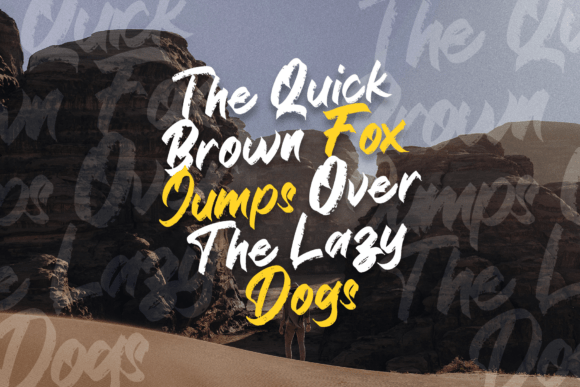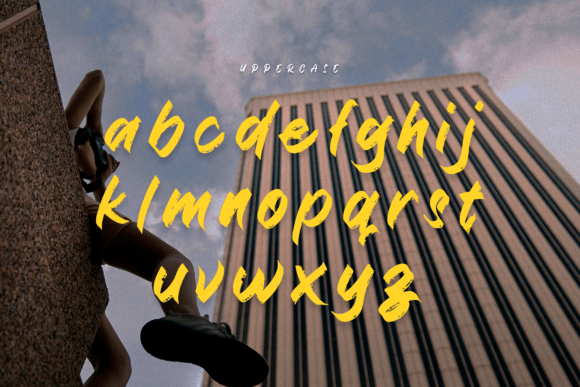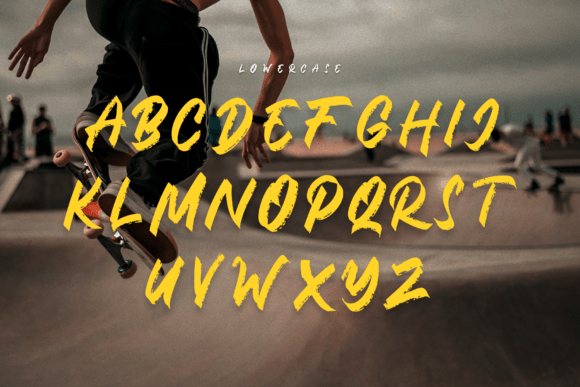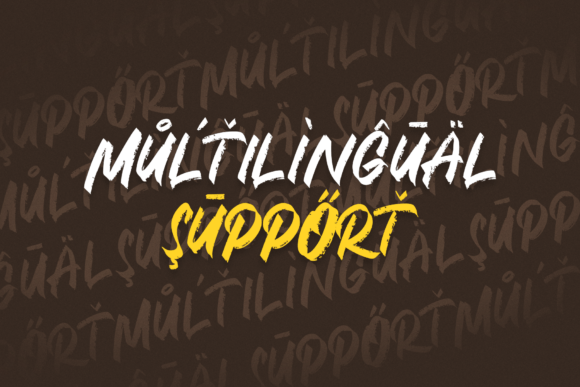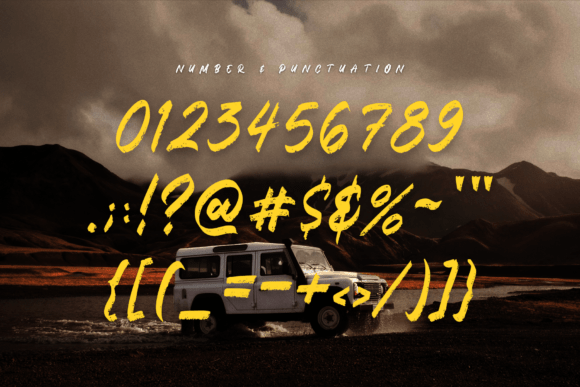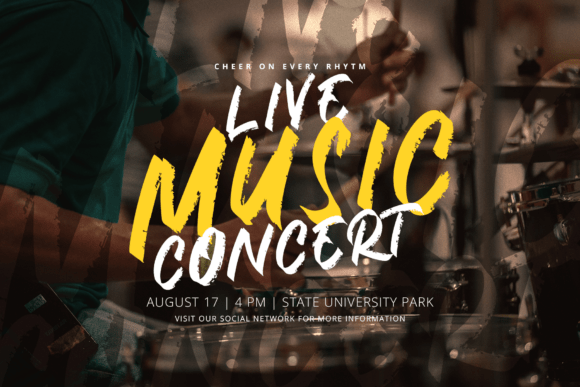
Unlock the Power of Brasskent Font: Elevate Your Designs with a Bold, Textured Brush Font
Welcome to the world of the provocatively impactful and expressive Brasskent font. This unique textured brush font carries with it an unforgiving boldness expertly designed to inject a passionate potency into your crafts, streetwear, or merchandise designs. Handwritten and meticulously crafted, Brasskent promises an edgy, urban, and gritty aesthetic that perfectly balances raw energy and artistry.
The Artistry of Brasskent
Brasskent’s sharp, dry-brush strokes are beautifully detailed and finely tuned to create an awe-inspiring display on your physical products. The font’s design is a masterclass in balancing contrasting elements, blending rough, textured brushstrokes with precise, calculated craftsmanship. This harmonious union results in a font that’s as visually striking as it’s versatile.
Unleash Your Creativity with PUA Encoding
An added dash of dynamism comes courtesy of Brasskent’s fully PUA (Private Use Area) encoded characters. This feature provides effortless access to the font’s outstanding alternate glyphs, unique ligatures, and high-energy brush underscores. With PUA encoding, you can easily navigate and experiment with the font’s various elements, unlocking a world of creative possibilities.
Ideal for a Variety of Applications
Brasskent is an incredibly versatile font, suitable for a wide range of applications. Some of the most popular uses include:
- Sublimation printing: Brasskent’s bold, textured design makes it perfect for sublimation printing on products like t-shirts, mugs, and phone cases.
- Gaming stream graphics: Add a touch of edgy sophistication to your gaming streams with Brasskent’s dynamic, high-energy design.
- Edgy sticker designs: Create eye-catching stickers that demand attention with Brasskent’s bold, gritty aesthetic.
In conclusion, Brasskent is a powerful, expressive font that’s poised to elevate your designs to new heights. With its bold, textured brushstrokes, PUA encoding, and user-friendly design, Brasskent is the perfect choice for designers and crafters looking to add a touch of edgy sophistication to their work. Whether you’re creating crafts, streetwear, or merchandise designs, Brasskent is the ultimate tool to help you stand out from the crowd.